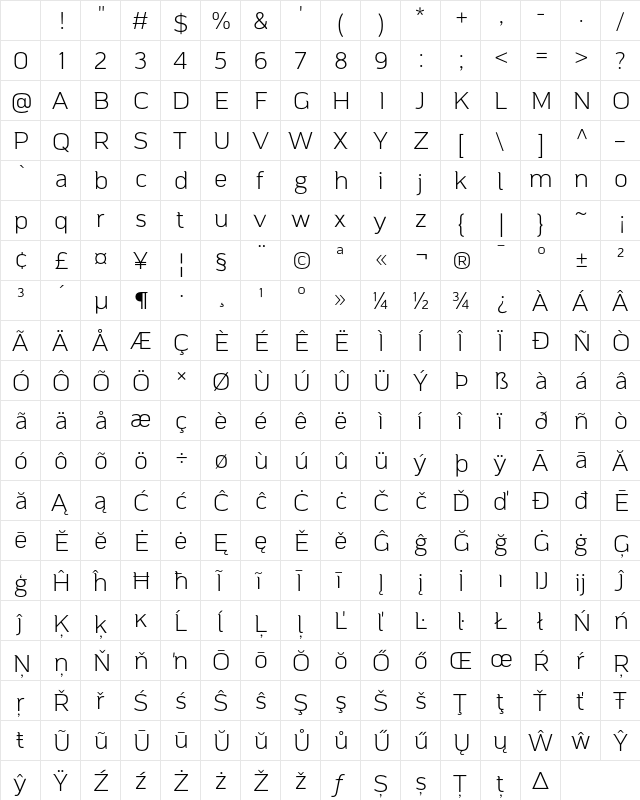
Mainlux is a composed and adaptable typeface that performs quietly and consistently across a wide range of design contexts. Its slender proportions lend an understated elegance to any composition.